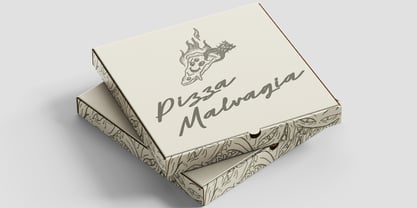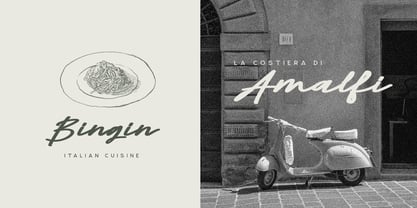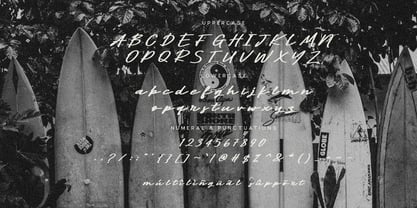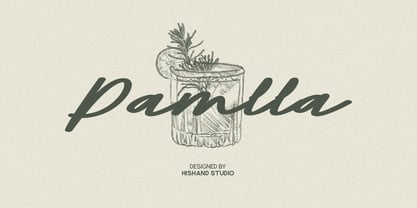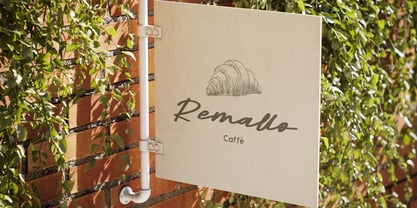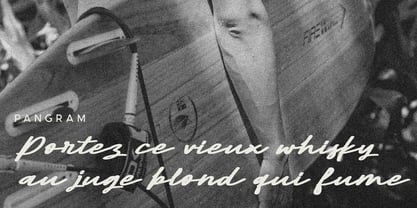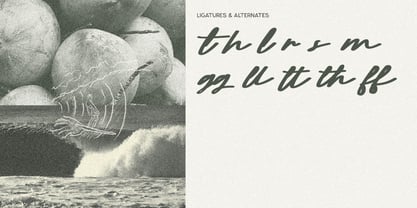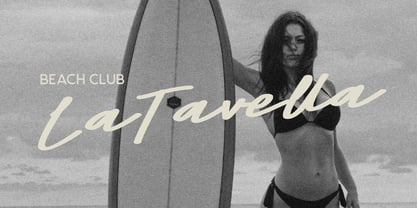
Pamlla
by Hishand Studio
The Pamlla Font Family was designed by Putu Dody Permana and published by Hishand Studio. Pamlla contains 1 styles.
Pamlla is a graceful script font that blends aesthetic charm with timeless elegance. Its flowing letterforms and delicate curves exude a refined, handcrafted feel perfect for branding, invitations, logos, and editorial design. Pamlla balances beauty and readability, making it ideal for projects that require both sophistication and clarity. Whether used for wedding stationery, upscale packaging, or stylish social media graphics, this font adds a classy flair that elevates your visual identity. Complete with
• uppercase
• lowercase
• ligatures
• alternates
• multilingual support